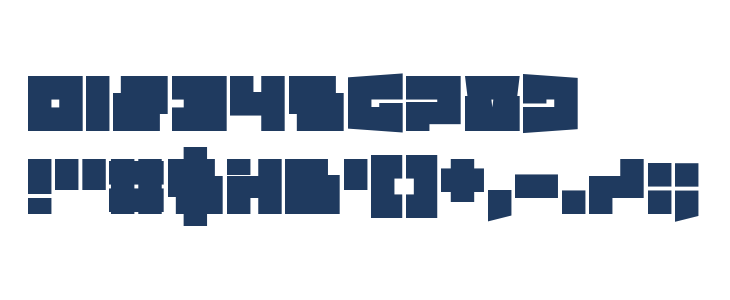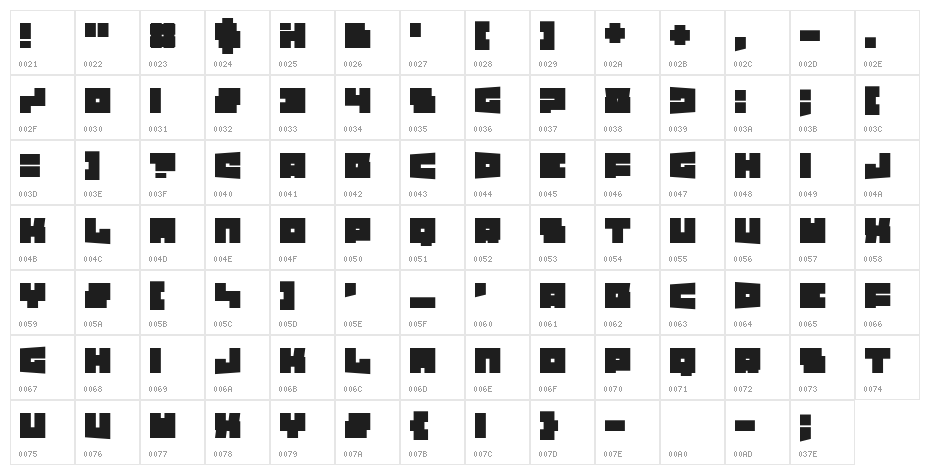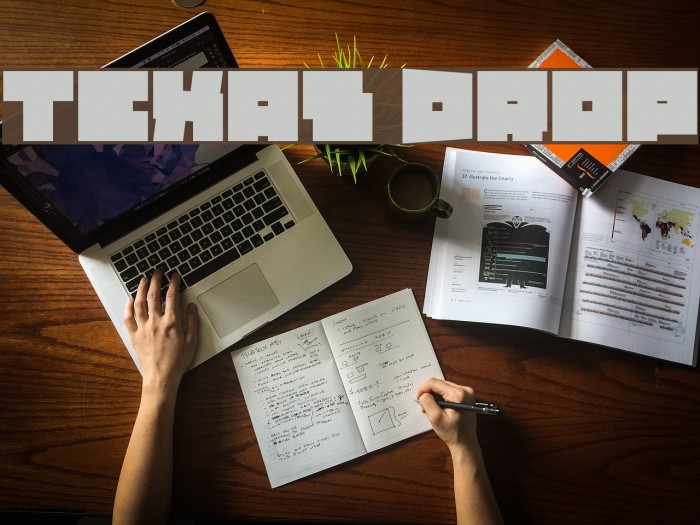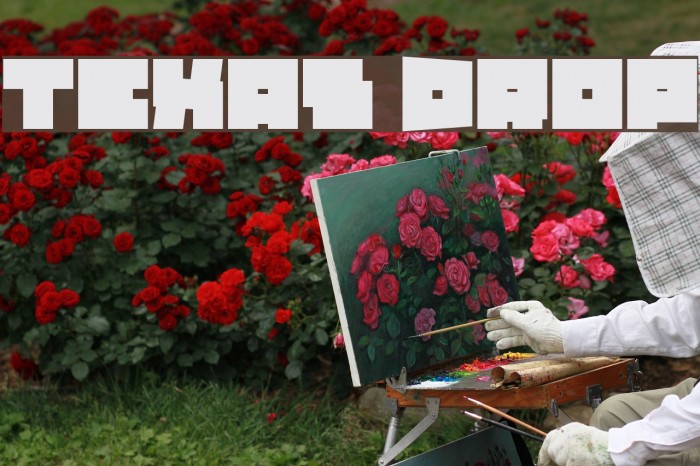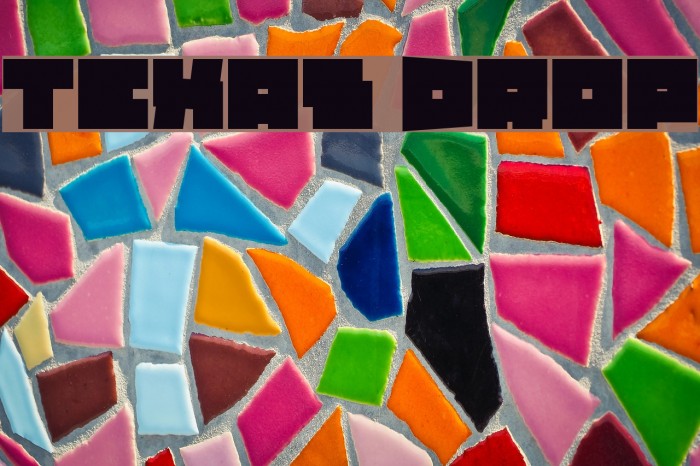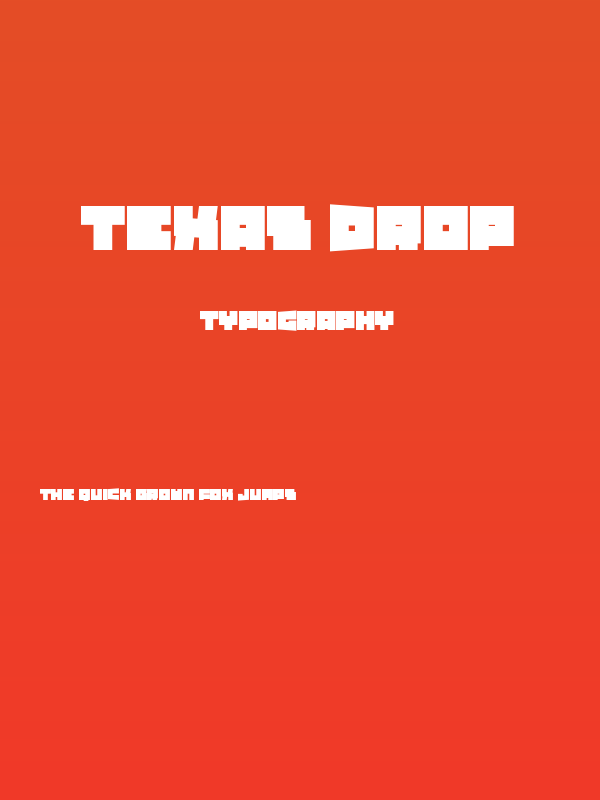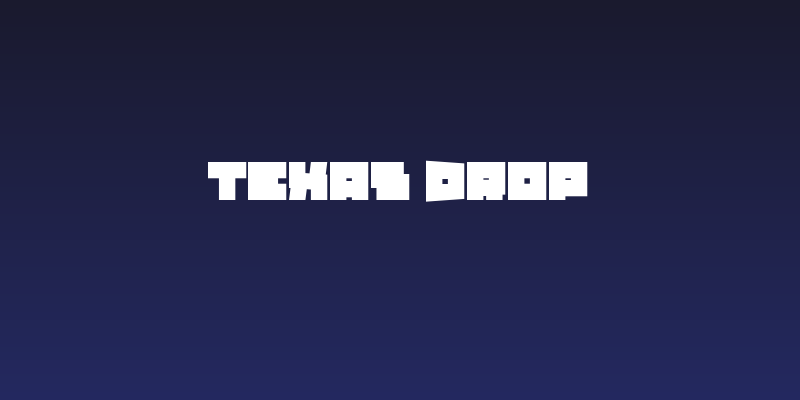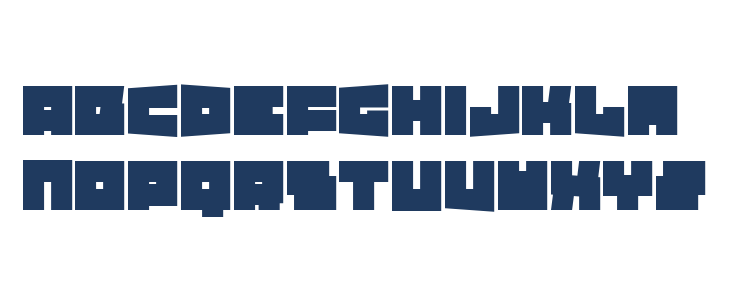
Texas Drop Font
Texas Drop Description
This font exhibits a bold, geometric style with strong, angular lines and a blocky appearance. The characters are uniformly thick, creating a sense of solidity and impact. The uppercase and lowercase letters maintain a consistent height, contributing to a cohesive look. The numbers and special characters follow the same design principles, ensuring uniformity across all glyphs. The font's design is reminiscent of retro or vintage styles, yet it maintains a modern edge due to its clean lines and structured form.
| Proposed Projects | Ideal for posters, logos, and branding projects that require a strong, impactful typeface. |